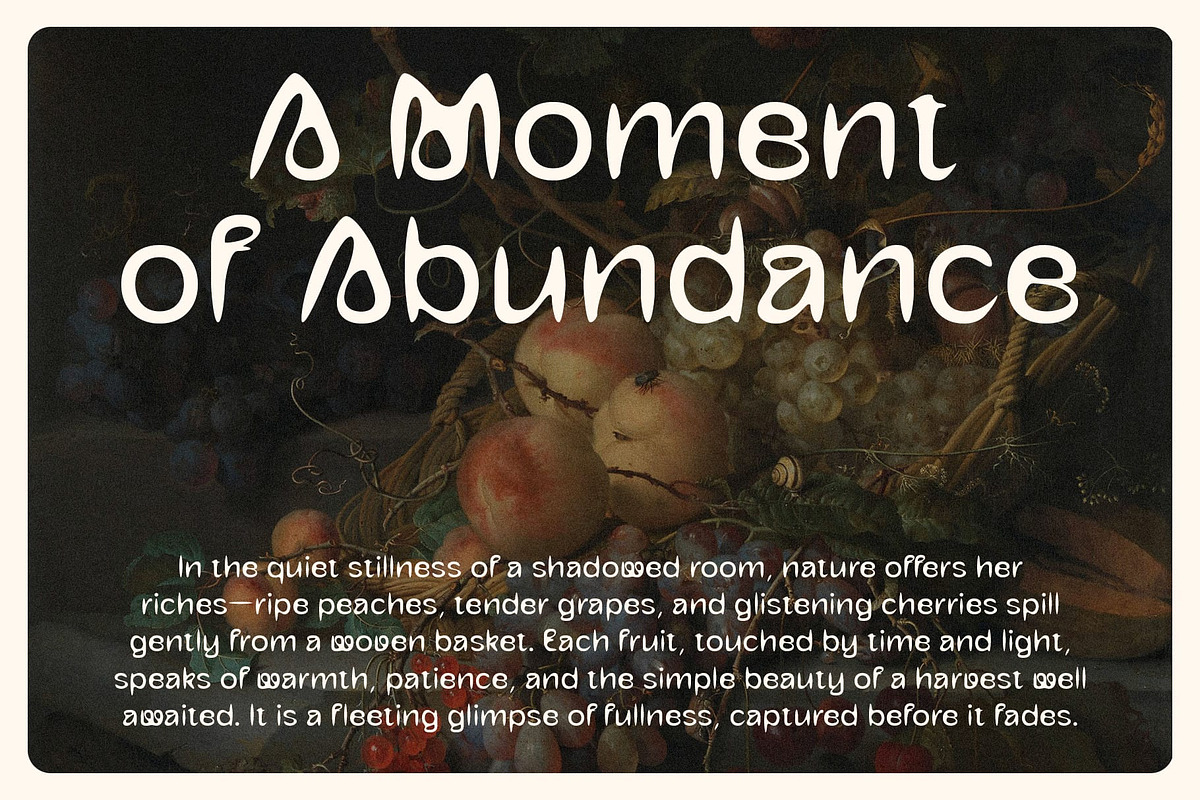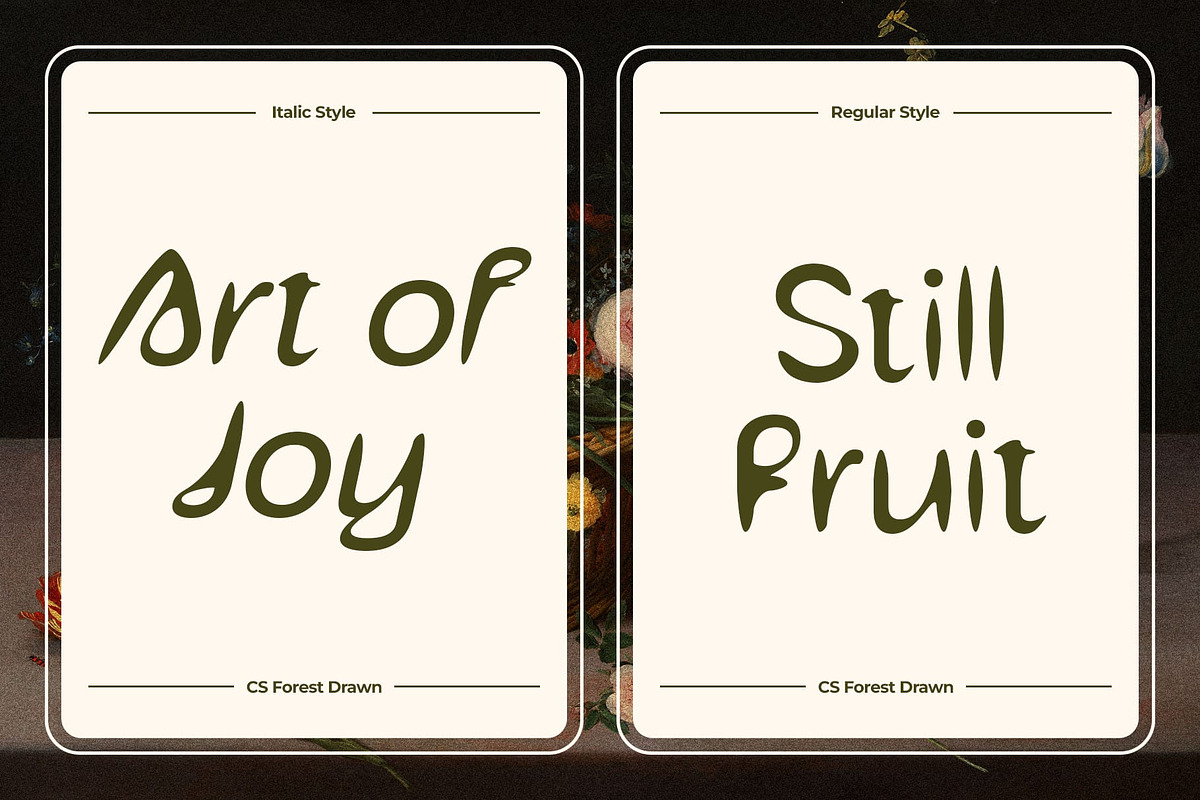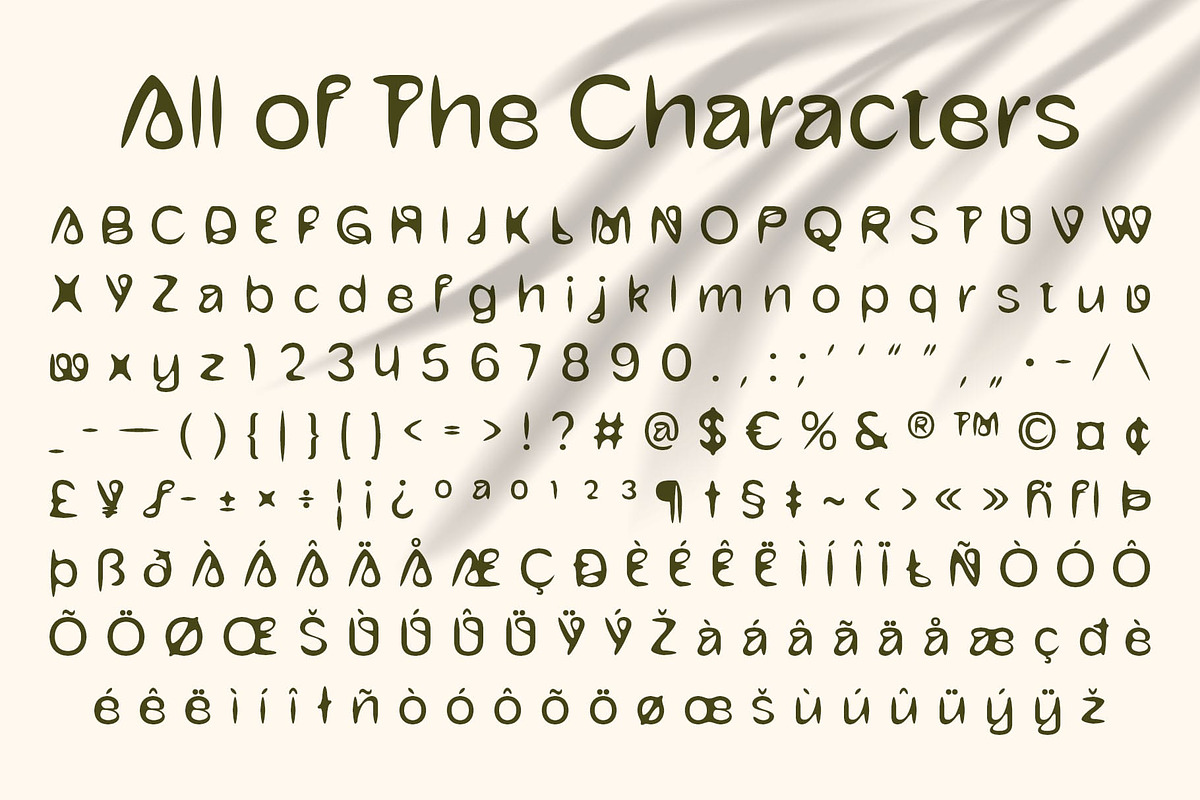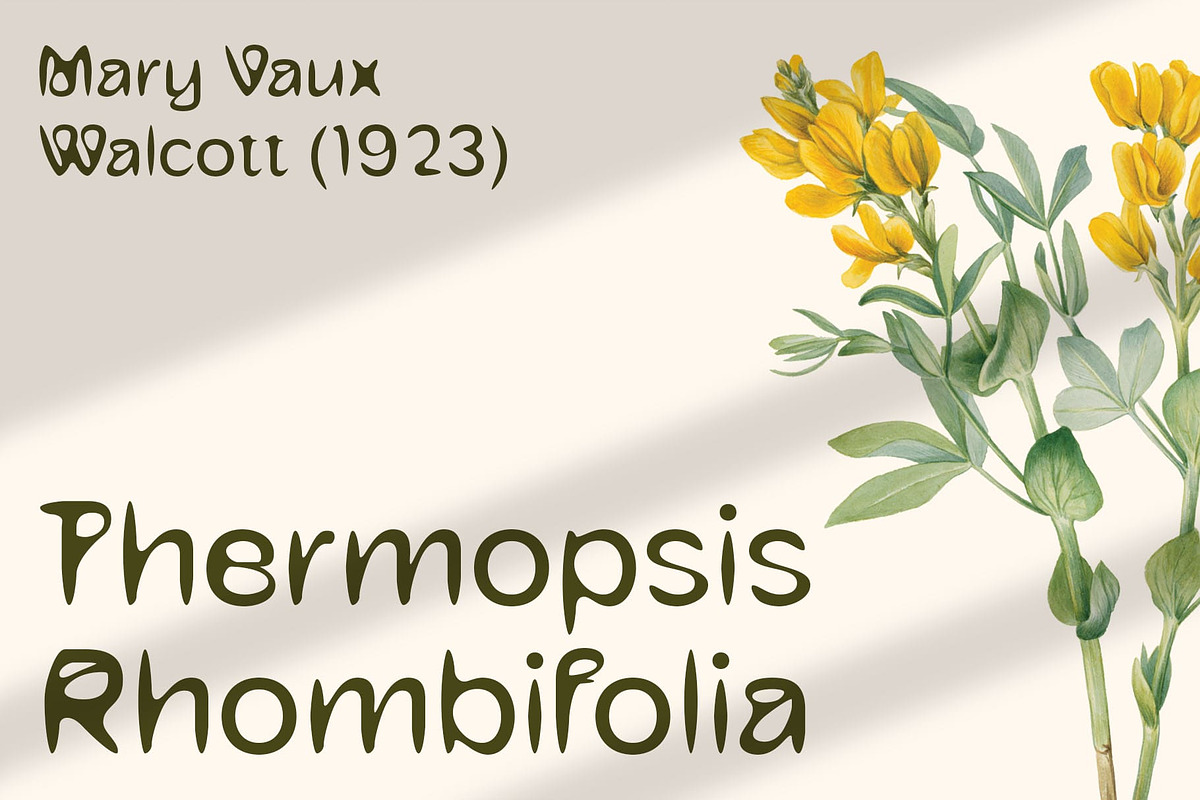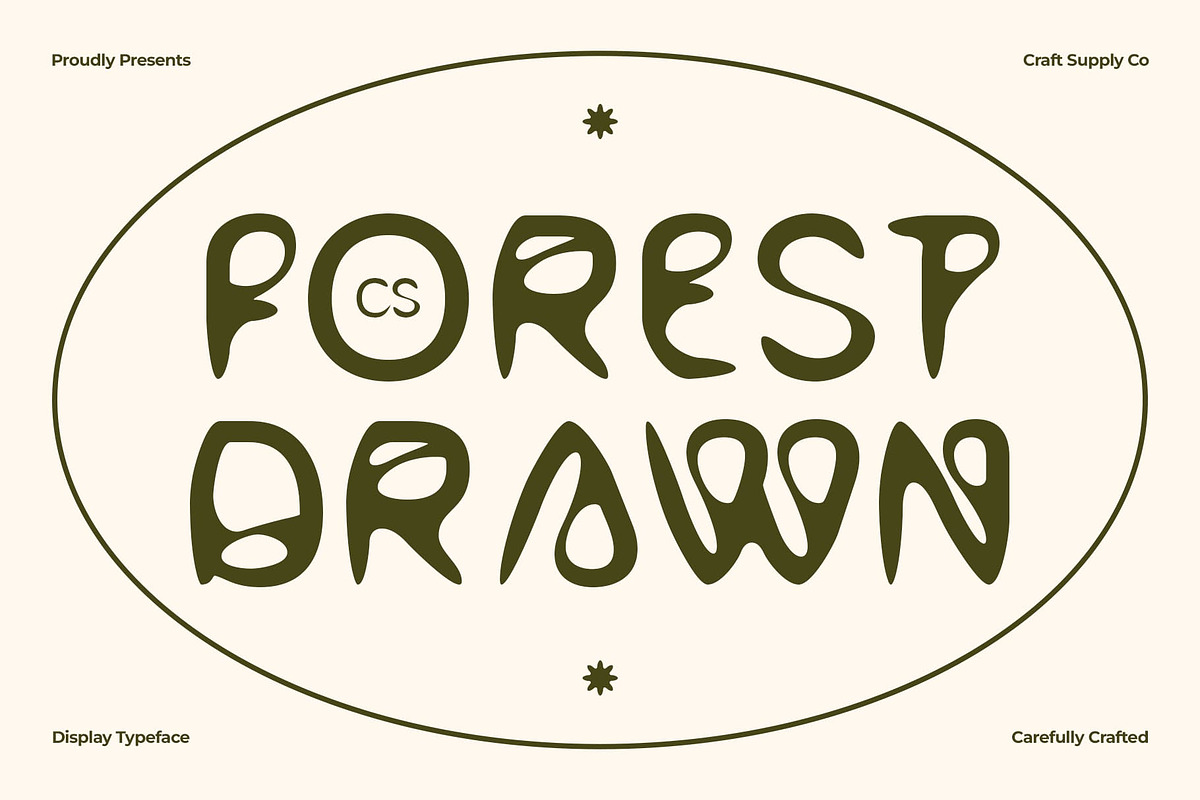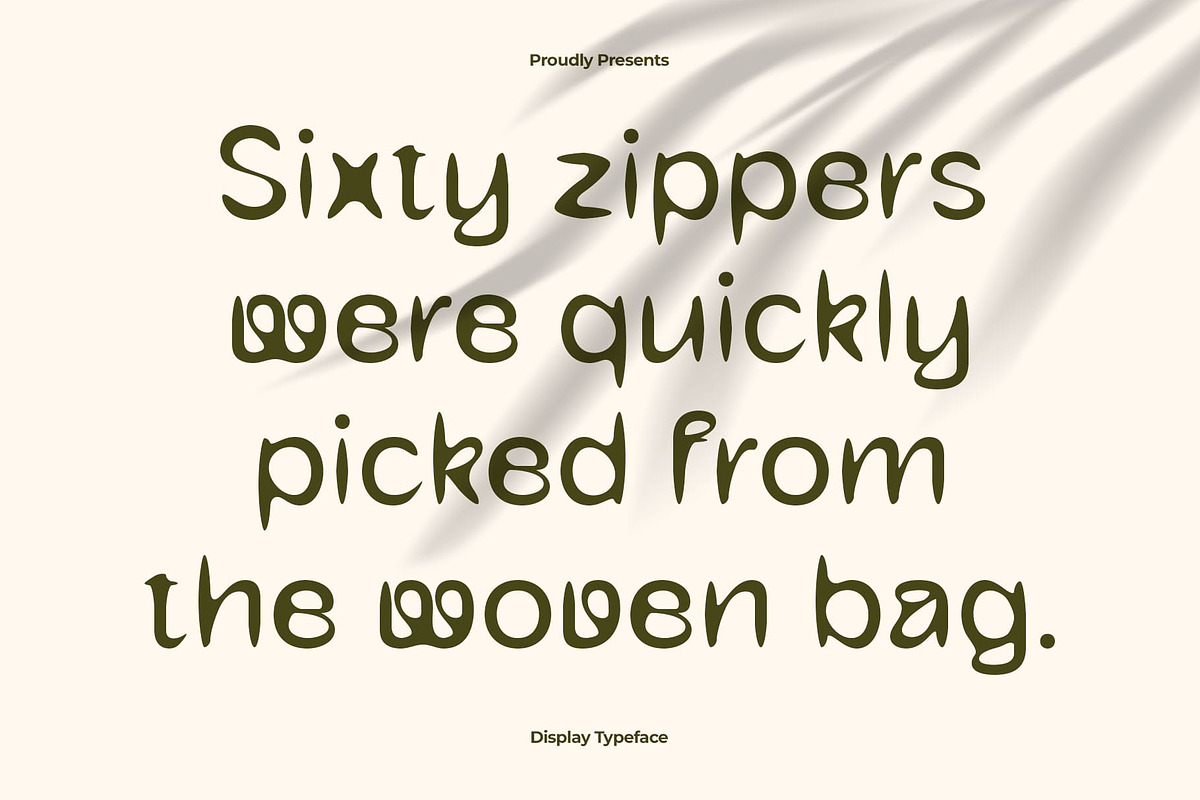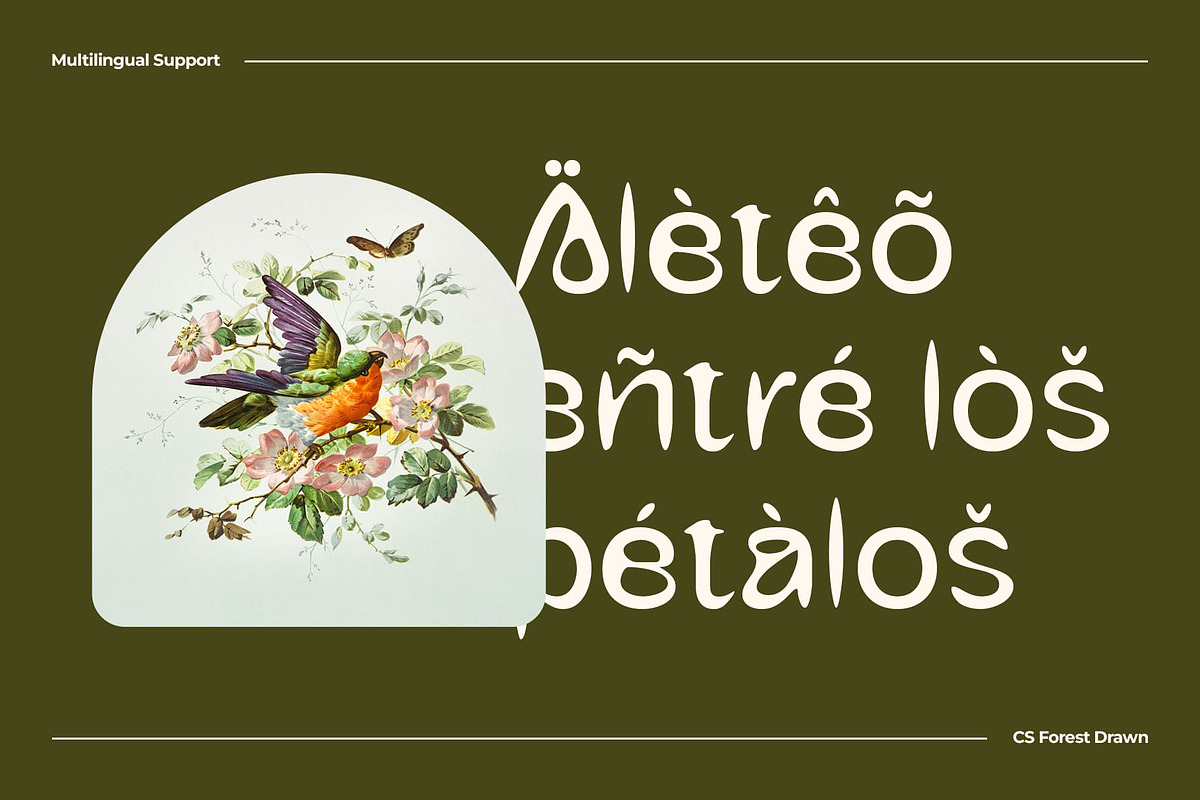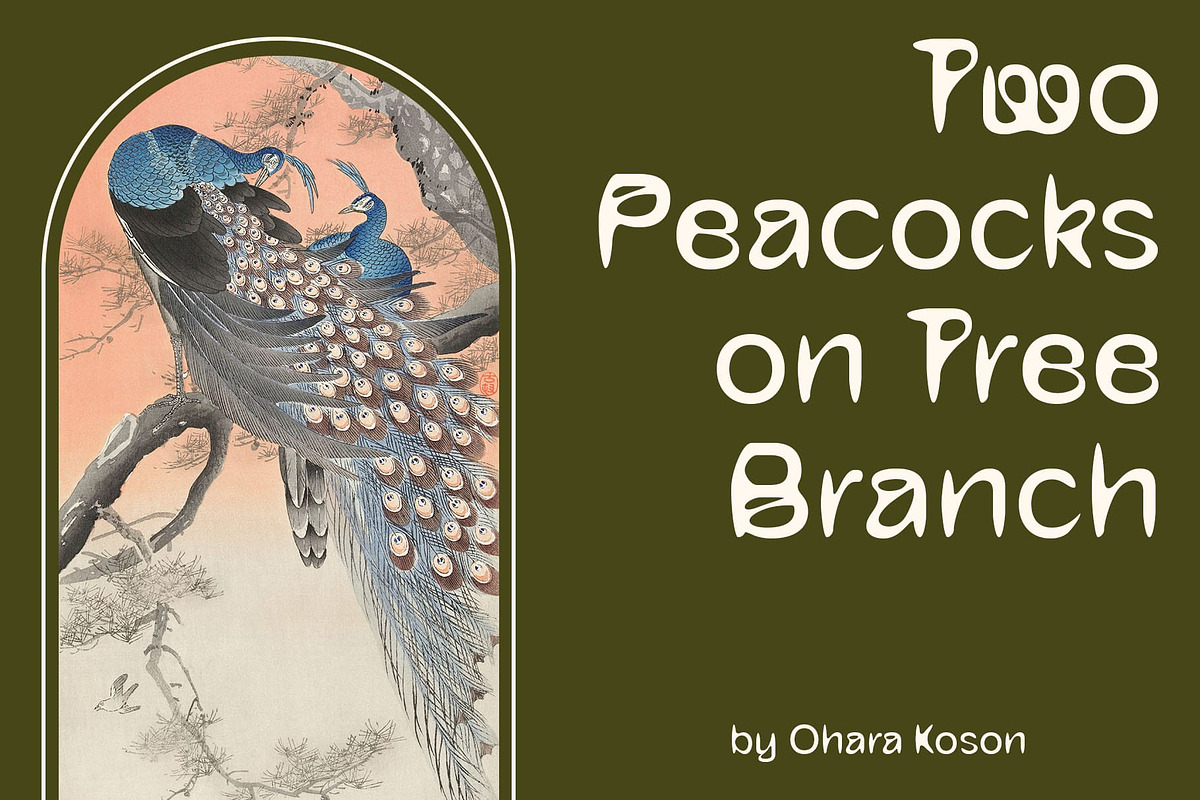
CS Forest Drawn
CS Forest Drawn – Art Nouveau-Inspired Sans Serif with Handcrafted Elegance
Graceful Forms with a Modern Touch This is a modern sans-serif display font that channels the elegance of Art Nouveau curves through clean, flowing shapes. Its design speaks of feminine beauty, soft strength, and organic rhythm, making it both visually charming and stylistically refined.
Delicate Details with a Handcrafted Feel What sets this feminine font apart is its subtle drawn effect, which adds a personal, handmade quality to its clean outlines, enhancing its charm and artistic appeal. The result is a typeface that feels both structured and soulful, ideal for projects that blend professional appeal with a human touch.
For Brands That Radiate Elegance and Individuality This font is especially well-suited for beauty and fashion branding, editorial layouts, luxury product packaging, and creative projects that aim to communicate grace, sophistication, and uniqueness. Whether used in headers or display text, this artistic font leaves a memorable impression through its harmonious, elegant rhythm.
Soft, Stylish, and Expressively Feminine This luxurious yet approachable font merges modern aesthetics with artistic warmth, creating a versatile design tool that elevates any visual identity with a gentle yet confident presence. It’s a go-to choice for creatives who seek a font that’s both timeless and emotionally resonant.